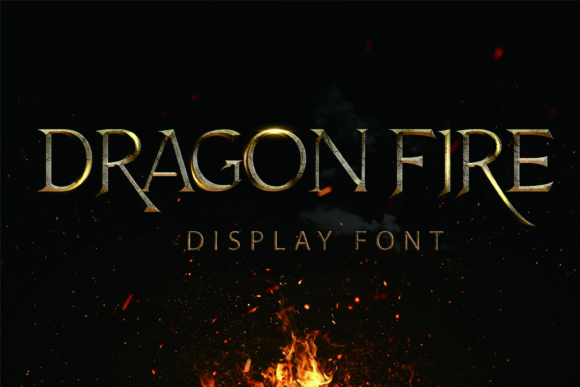
Blaze through your creative projects with the captivating Dragon Fire font, a breathtaking display font that sparks imagination and commands attention. Unleash the fiery force of your designs with this extraordinary creation from Girinesia, the master of digital artistry.
Dragon Fire is more than just a font; it's a blazing inferno of creativity, a font ablaze with passion and inspiration. Its bold and striking characters dance across your designs like flames, leaving a trail of visual delight. Experience the rush of adrenaline as your projects ignite with an energy that captivates and mesmerizes.
Picture your logos ablaze with the fiery intensity of Dragon Fire, roaring with power and commanding attention. Imagine posters that burst forth from the page, their messages amplified by this font's inherent boldness. Let your gaming worlds come alive with the fiery essence of Dragon Fire, where each character carries the weight of destiny and adventure.
The possibilities are endless with Dragon Fire, a font that fuels your creativity and ignites your imagination. Embrace the flickering flame of this extraordinary font and watch as your creative vision bursts into life. Download Dragon Fire today and let your designs erupt with the brilliance of a thousand stars.